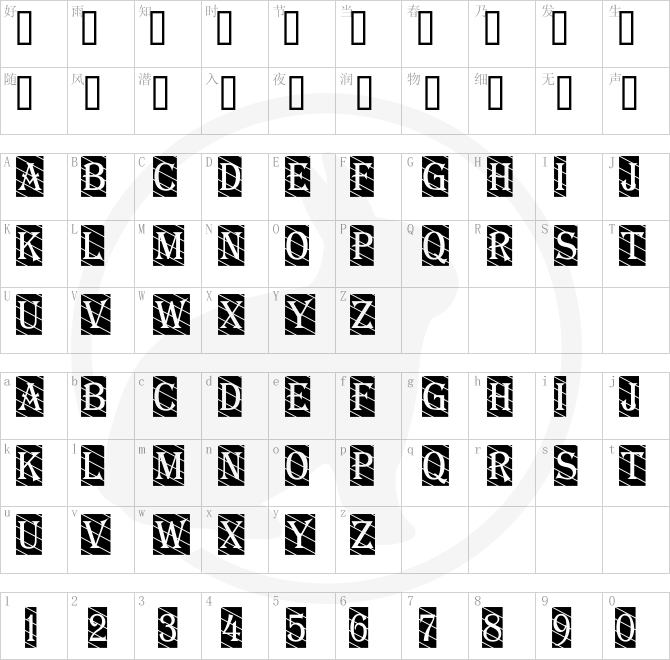
- Font Name:a_AlgeriusCmDgStr
- Full Name:a_AlgeriusCmDgStr
a_AlgeriusCmDgStr.ttf is a very beautiful artistic font, a_AlgeriusCmDgStr.ttf is widely used in the design and printing of various books and pictures,a_AlgeriusCmDgStr.ttf has a strong visual impact,a_AlgeriusCmDgStr.ttf is a commonly used font in newspapers, magazines and books, and is used in posters, e-commerce Poster design, store design, logo design, font design and other fields.a_AlgeriusCmDgStr.